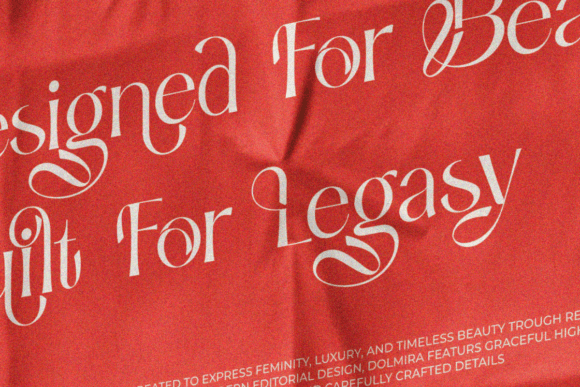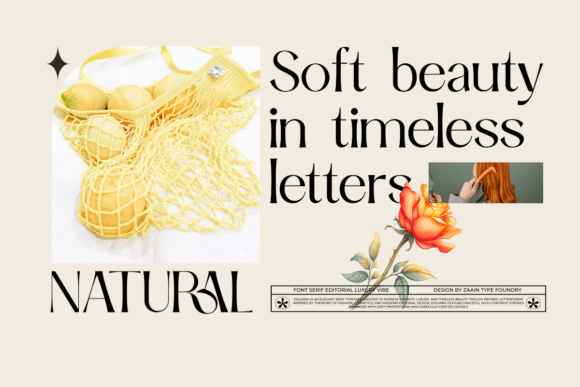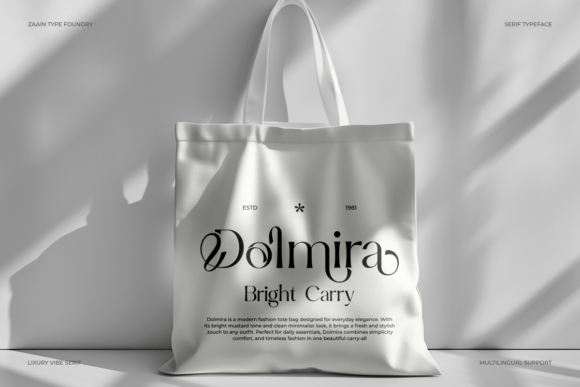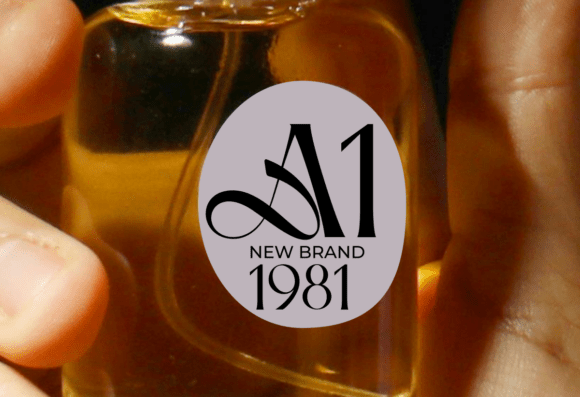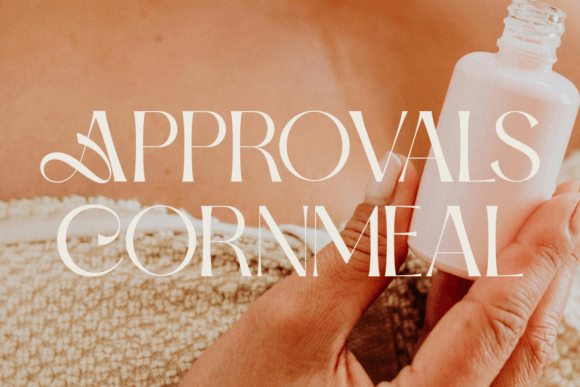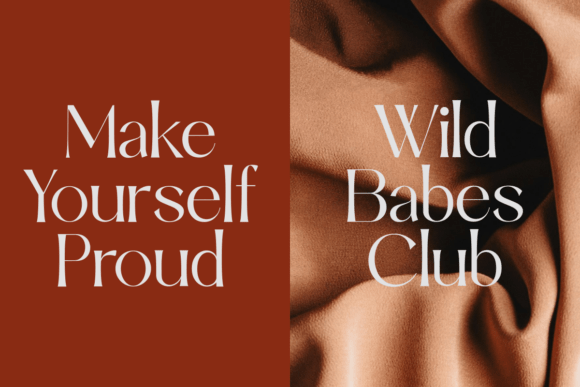
Dolmira Font: Elevate Your Design with Elegance and Sophistication
In the world of typography, few fonts manage to strike a balance between classic charm and modern sophistication. Dolmira, an elegant serif font, is one such typeface that seamlessly blends traditional character with a refined modern touch. Designed to deliver a luxurious and feminine impression, Dolmira is perfectly suited for premium branding needs, making it an ideal choice for designers and crafters looking to elevate their projects.
The Essence of Dolmira
Dolmira’s design is characterized by smooth thick-and-thin contrast, graceful letterforms, and luxurious details. These features come together to create a typeface that exudes elegance and sophistication, making it perfect for high-end applications. Whether you’re working on fashion branding, cosmetics packaging, editorial layouts, exclusive invitations, logos, or high-end product design, Dolmira is sure to bring a touch of luxury and refinement to your project.
Timeless Aesthetic with a Modern Twist
One of the standout features of Dolmira is its ability to bring a timeless atmosphere to any design while maintaining a clean and professional aesthetic. The font’s classic serif structure is updated with a modern sensibility, making it versatile enough to work in a variety of contexts. This blend of old and new ensures that your design will not only stand out but also remain relevant for years to come.
Dolmira’s versatility is one of its most compelling attributes. Its strong yet gentle appearance makes it suitable for a wide range of applications. For fashion designers, Dolmira offers a way to convey elegance and style through branding and packaging. Editorial designers will appreciate the font’s readability and luxurious feel, which can elevate the quality of any publication. Additionally, the font’s feminine touch makes it an excellent choice for cosmetics and beauty brands looking to communicate sophistication and glamour.
Crafting Distinctive Designs with Dolmira
For crafters and designers, Dolmira presents an opportunity to create distinctive and memorable designs. The font’s unique blend of classic elegance and modern refinement allows for the creation of visually striking materials that capture attention and convey a sense of luxury. Whether you’re designing bespoke stationery, luxury product labels, or high-end fashion accessories, Dolmira can help you achieve a level of sophistication that sets your work apart.
Technical Excellence
Dolmira is not just about aesthetics; it’s also designed with functionality in mind. The font is crafted to ensure excellent readability across various sizes and applications, from large headlines to smaller body text. This makes it a practical choice for designers who need a font that performs well in multiple contexts. Furthermore, Dolmira’s compatibility with a wide range of design software ensures that it can be easily integrated into your workflow.
Dolmira is more than just a font; it’s a design statement. Its elegant serif structure, combined with a refined modern touch, makes it the perfect choice for designers and crafters looking to imbue their projects with sophistication and luxury. Whether you’re working on premium branding, editorial layouts, or high-end packaging, Dolmira offers the versatility and aesthetic appeal needed to create distinctive and impactful designs. With Dolmira, you can elevate your design to new heights of elegance and sophistication, ensuring that your work stands out in a crowded marketplace.